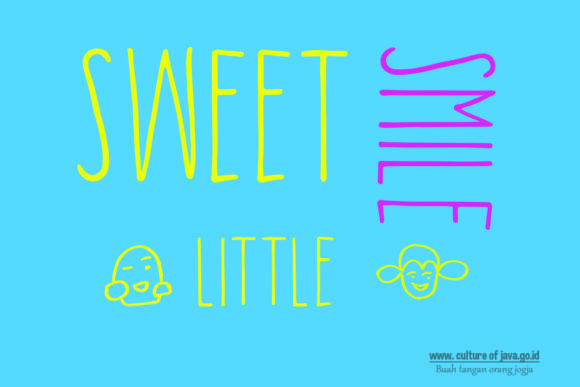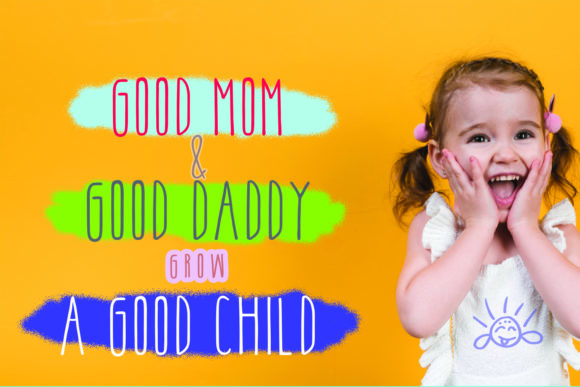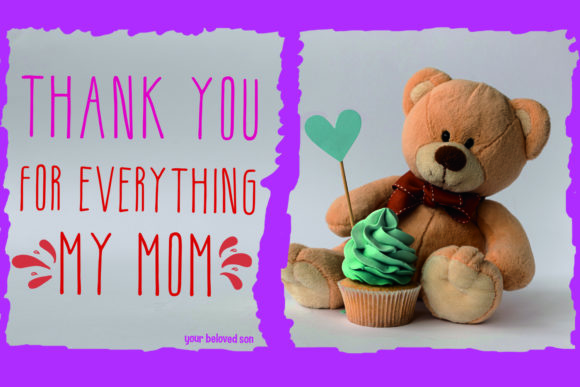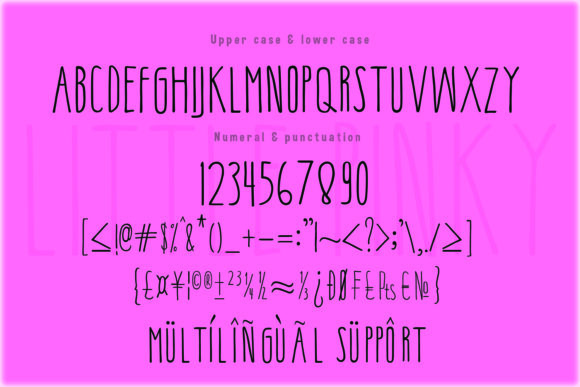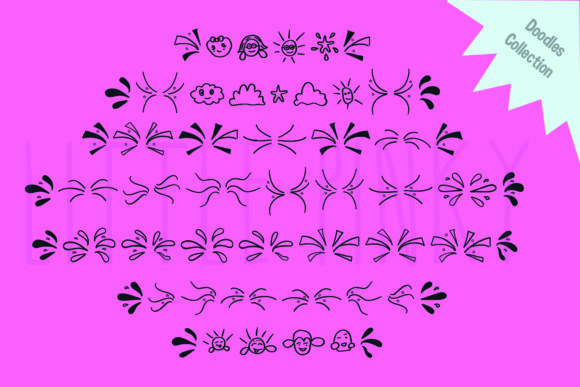
Little Pinky Font
Little Pinky embodies fun, quirkiness and authenticity. This enchanting handwritten font will turn any creative idea into a true standout. Get creative with its childlike playfulness, and use it to brighten up any kids and school project!